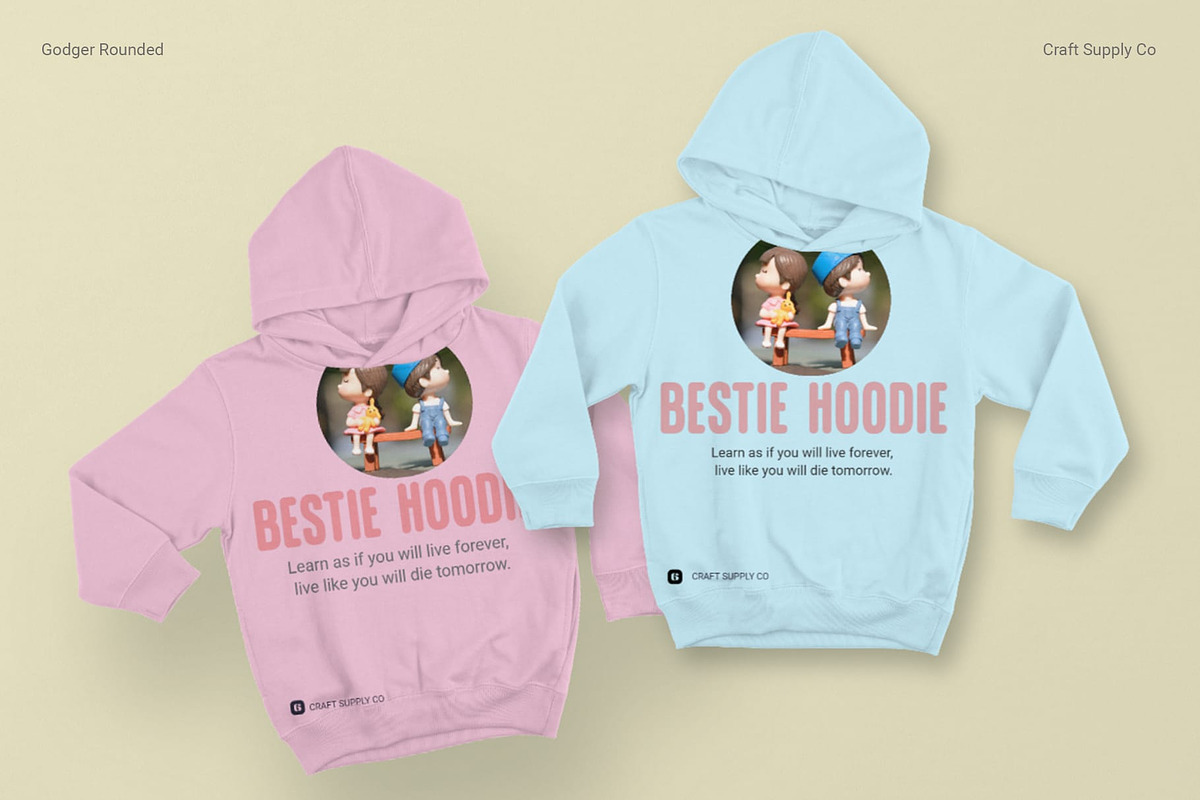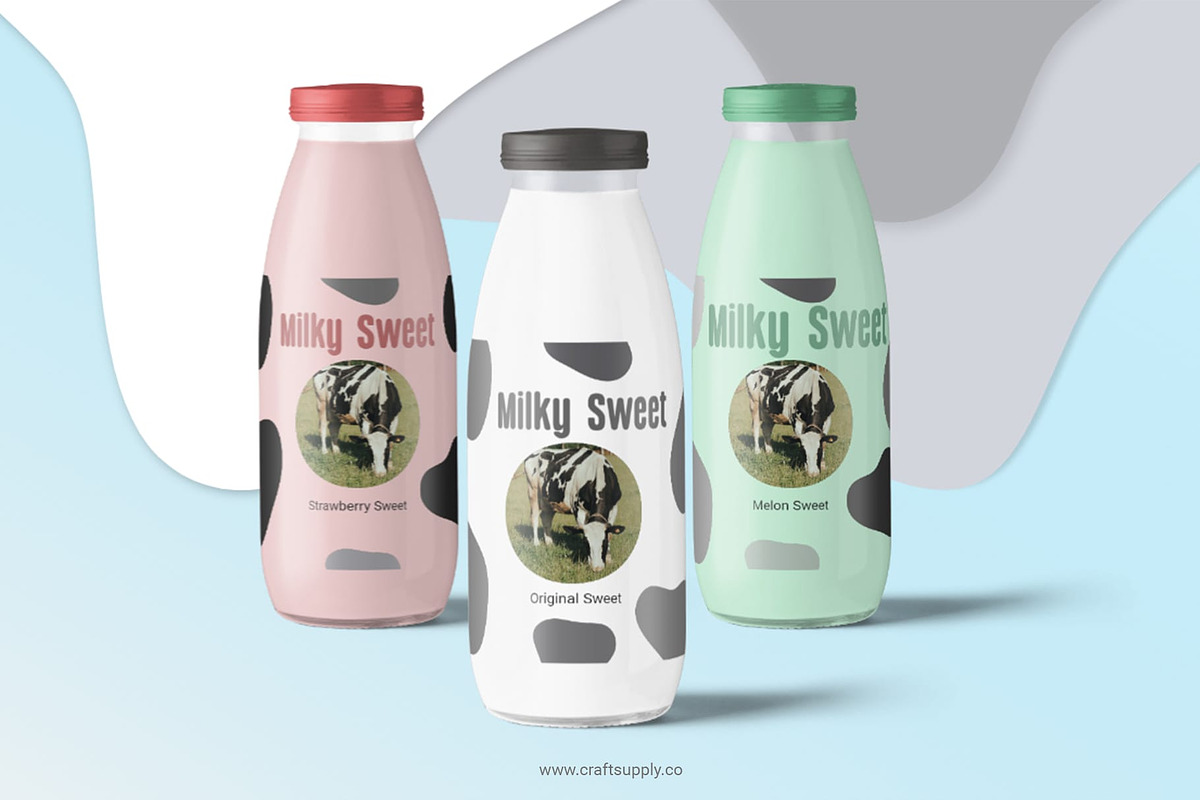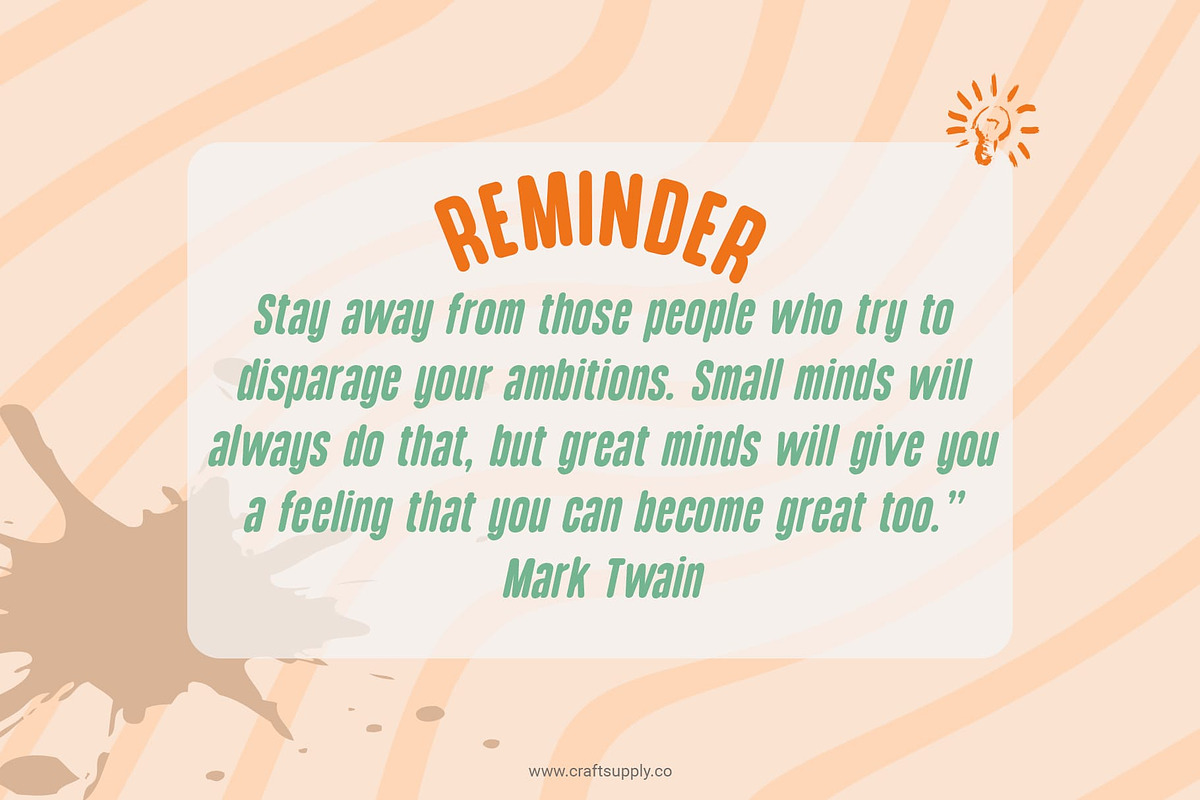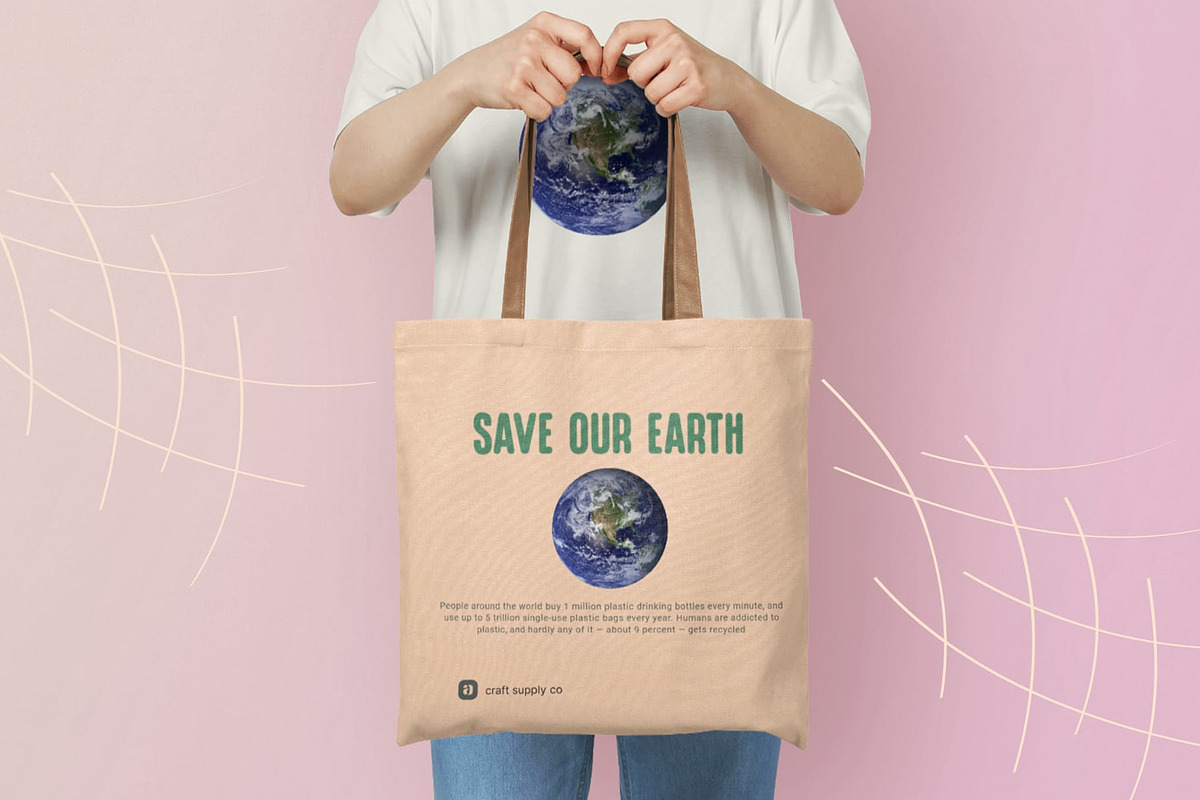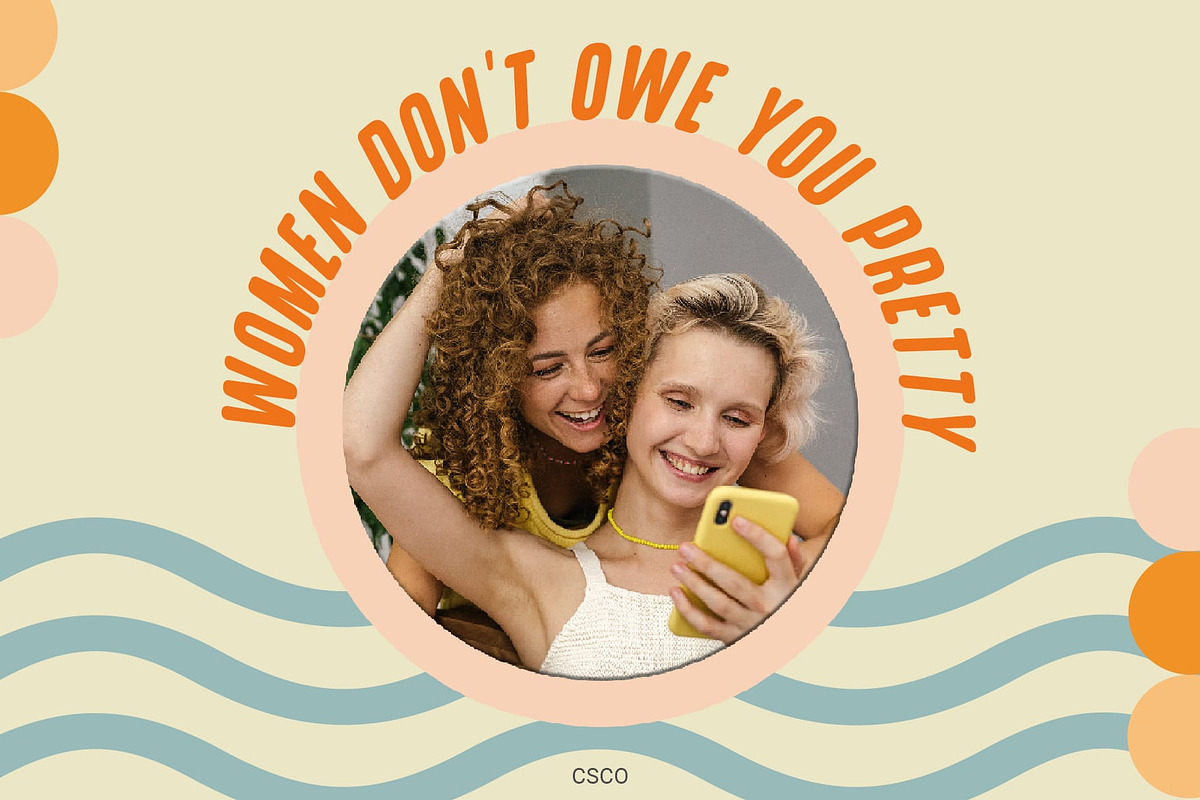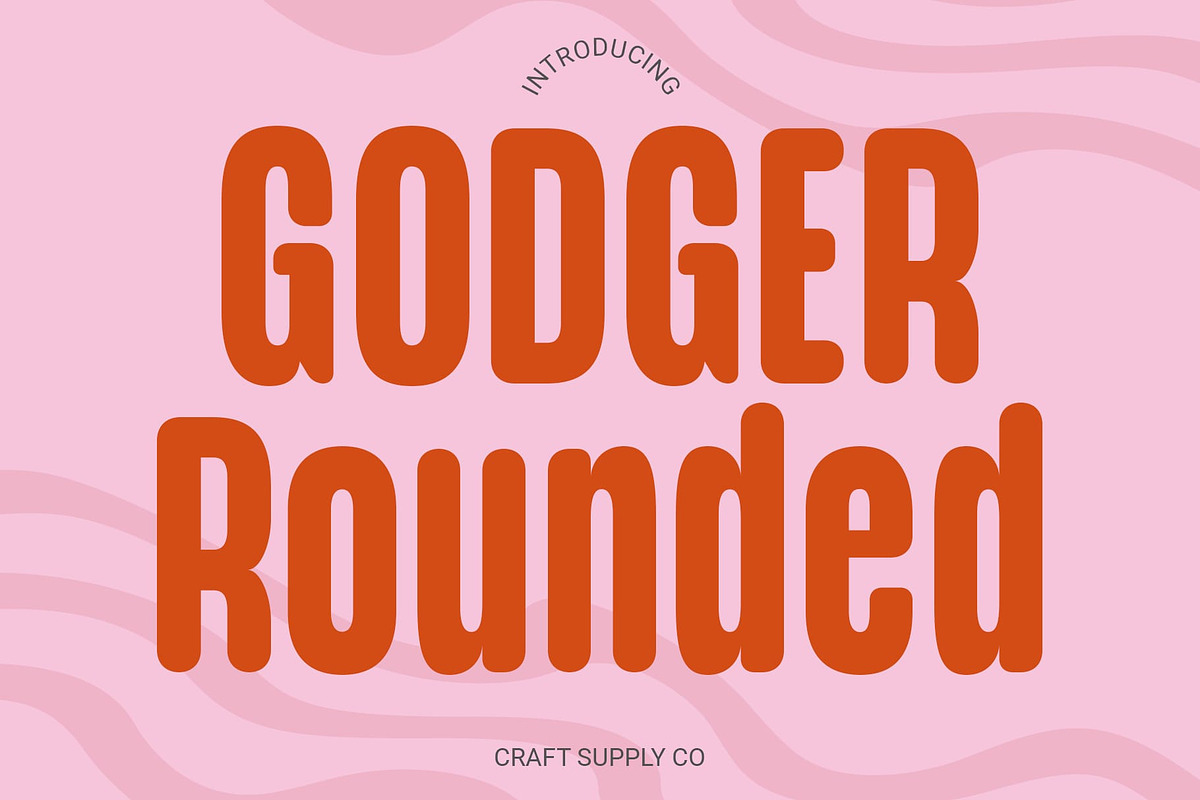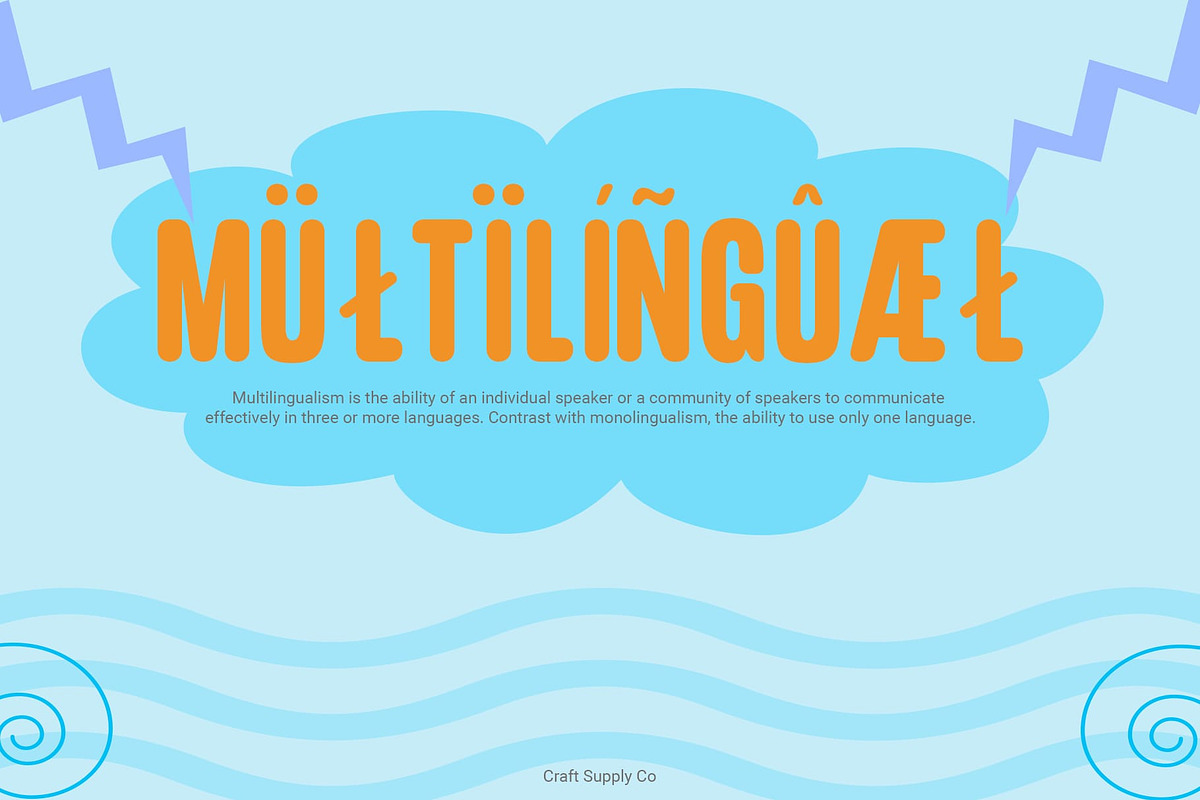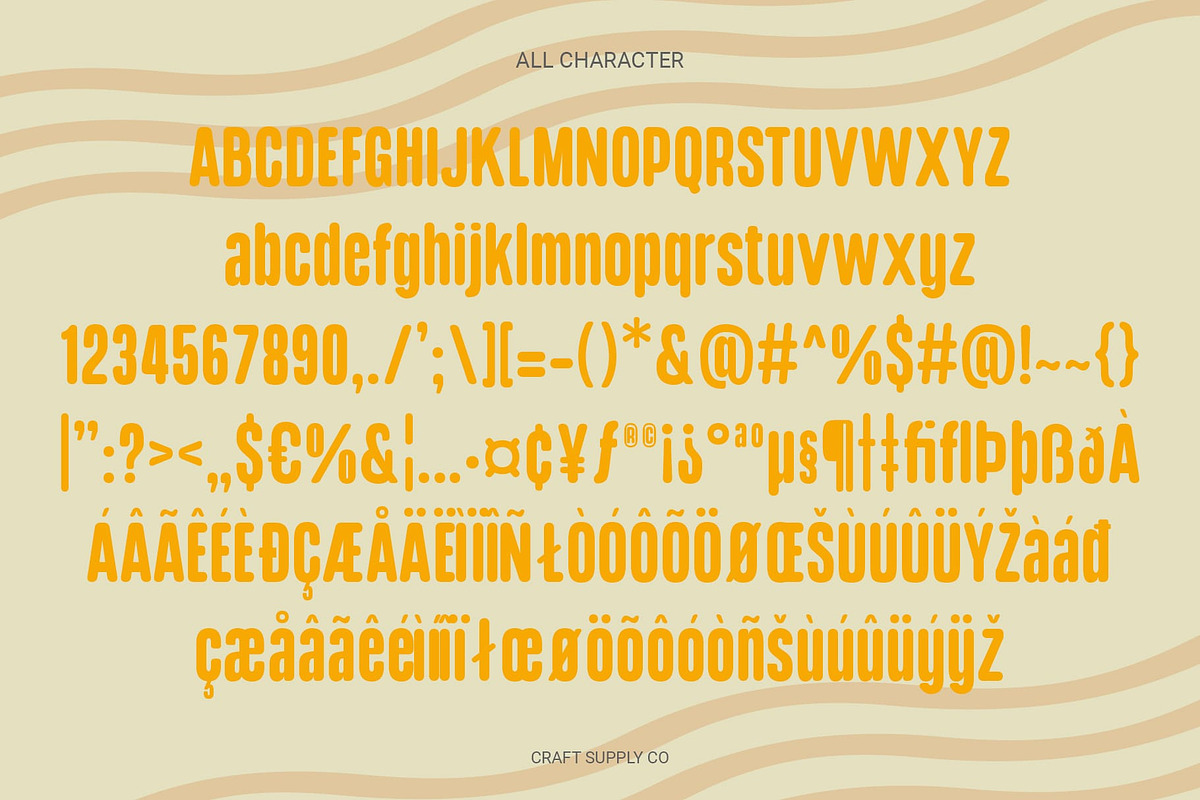
Godger Rounded
Godger Rounded: The Perfect Title Typeface
Bold and Condensed Godger Rounded features a bold and condensed sans serif design, ideal for commanding attention in titles and headings. Its condensed form allows for more text to fit within limited spaces without sacrificing legibility, making it a practical choice for various design applications.
Sleek and Impactful With its sleek and impactful appearance, This font makes a bold statement, ensuring that titles stand out prominently. Its clean lines and rounded edges add a touch of modernity and sophistication, making it suitable for contemporary design projects.
Versatile Title Typeface Tailored specifically for titles, This font offers versatility in various design contexts, from posters to web banners. Its bold weight and condensed form make it well-suited for large, attention-grabbing headlines as well as smaller titles where space is limited.
Effortless Elegance This font effortlessly combines boldness with elegance, making it a go-to choice for designers seeking impactful title typography. Its balanced proportions and refined curves exude a sense of professionalism and sophistication, elevating the overall look of any design project.
Boldness in Titles This font emerges as a versatile and impactful sans serif typeface, perfect for titles across diverse design projects. Its bold and condensed design exudes confidence and ensures that titles command attention with effortless elegance, making it an indispensable asset for designers striving to create captivating visual compositions.